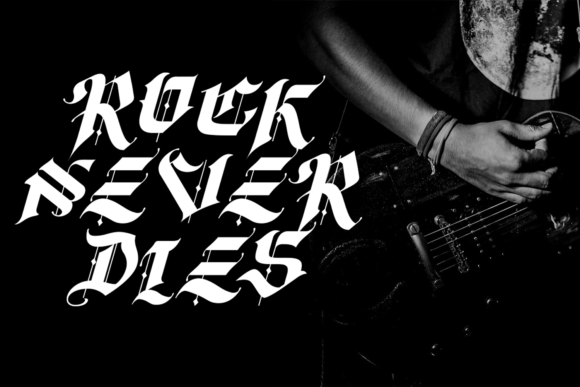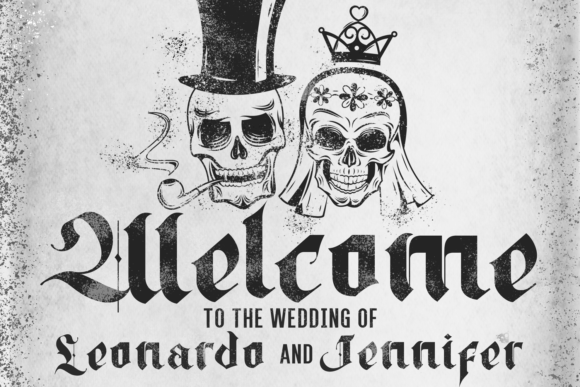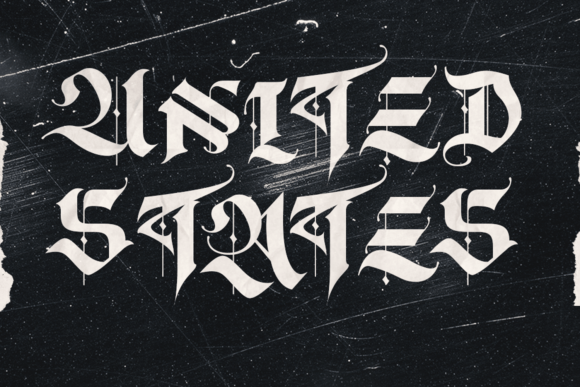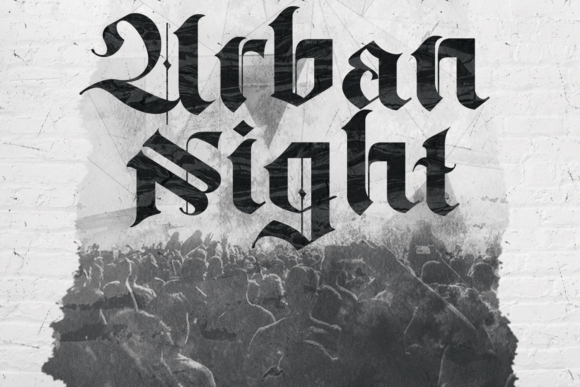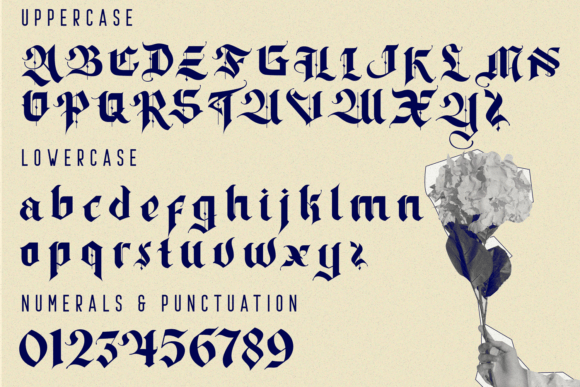
Introducing Decision Making Font: The Ultimate Blackletter Typeface for Bold Designs
Are you tired of using the same old fonts for your creative projects? Look no further! Decision Making Font is an incredibly authentic and daring blackletter font that is sure to take your designs to the next level. This stunning font is carefully crafted with references to various letters that combine beautifully, making it perfect for adding a touch of elegance and sophistication to your work.
What is Decision Making Font?
Decision Making Font is a unique blackletter typeface that is designed to make a statement. Its bold and daring style is inspired by traditional blackletter fonts, but with a modern twist that sets it apart from the rest. The font is made up of intricate lines and curves that come together to create a beautiful and cohesive look.
Features of Decision Making Font
- Authentic and Daring Style: Decision Making Font has an incredibly authentic and daring style that is sure to grab attention.
- Unique Lettering: The font is made with references to various letters that combine beautifully, making it perfect for creating stunning designs.
- Versatile: Decision Making Font is great and useful for a wide range of design projects, including product logos, poster titles, headlines, packaging, badges, wedding card logos, clothing brand logos, vintage designs, and much more.
- Easily Customizable: The font is easy to customize, allowing you to adjust the letters to fit your specific design needs.
Uses of Decision Making Font
Decision Making Font is an incredibly versatile font that can be used for a wide range of design projects. Here are some of the many uses of this amazing font:
- Product Logos: Create a bold and eye-catching logo for your product with Decision Making Font.
- Poster Titles: Use the font to create stunning poster titles that grab attention.
- Headlines: Add a touch of elegance and sophistication to your headlines with Decision Making Font.
- Packaging: Use the font to create eye-catching packaging that stands out on store shelves.
- Badges: Create custom badges with Decision Making Font for a unique and personalized look.
- Wedding Card Logos: Add a touch of elegance and sophistication to your wedding card logos with this beautiful font.
- Clothing Brand Logos: Create a bold and eye-catching logo for your clothing brand with Decision Making Font.
- Vintage Designs: Use the font to create stunning vintage designs that are sure to impress.
Why Choose Decision Making Font?
There are many reasons why you should choose Decision Making Font for your design projects. Here are just a few:
- Unique and Authentic Style: The font has a unique and authentic style that sets it apart from other fonts.
- High-Quality Design: Decision Making Font is designed with high-quality lines and curves that come together to create a beautiful and cohesive look.
- Easily Customizable: The font is easy to customize, allowing you to adjust the letters to fit your specific design needs.
- Versatile: The font is great and useful for a wide range of design projects.
Decision Making Font is an incredibly authentic and daring blackletter font that is sure to take your designs to the next level. With its unique and authentic style, high-quality design, and versatility, this font is perfect for designers and crafters who want to create stunning designs that stand out. Whether you’re creating product logos, poster titles, headlines, packaging, badges, wedding card logos, clothing brand logos, vintage designs, or anything else, Decision Making Font is the perfect choice.